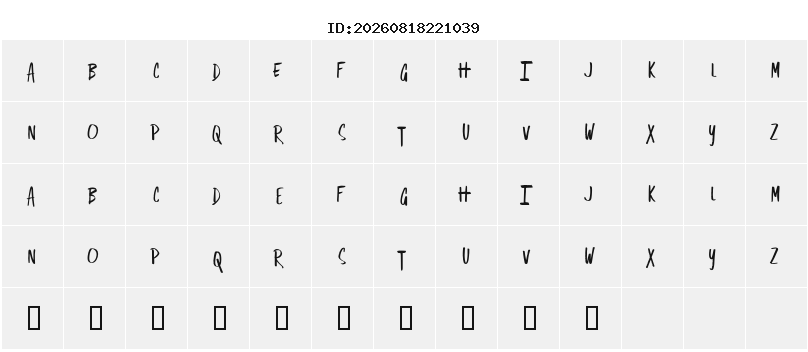
Sing Out Preview
• Font Name: Sing Out
• Designer: i
• Manufacturer: Skyhaven
About Sing Out.otf
Sing Out.otf is a modern, elegant sans-serif font designed for ultimate readability and visual harmony. Perfect for branding, headlines, web design, and print materials.